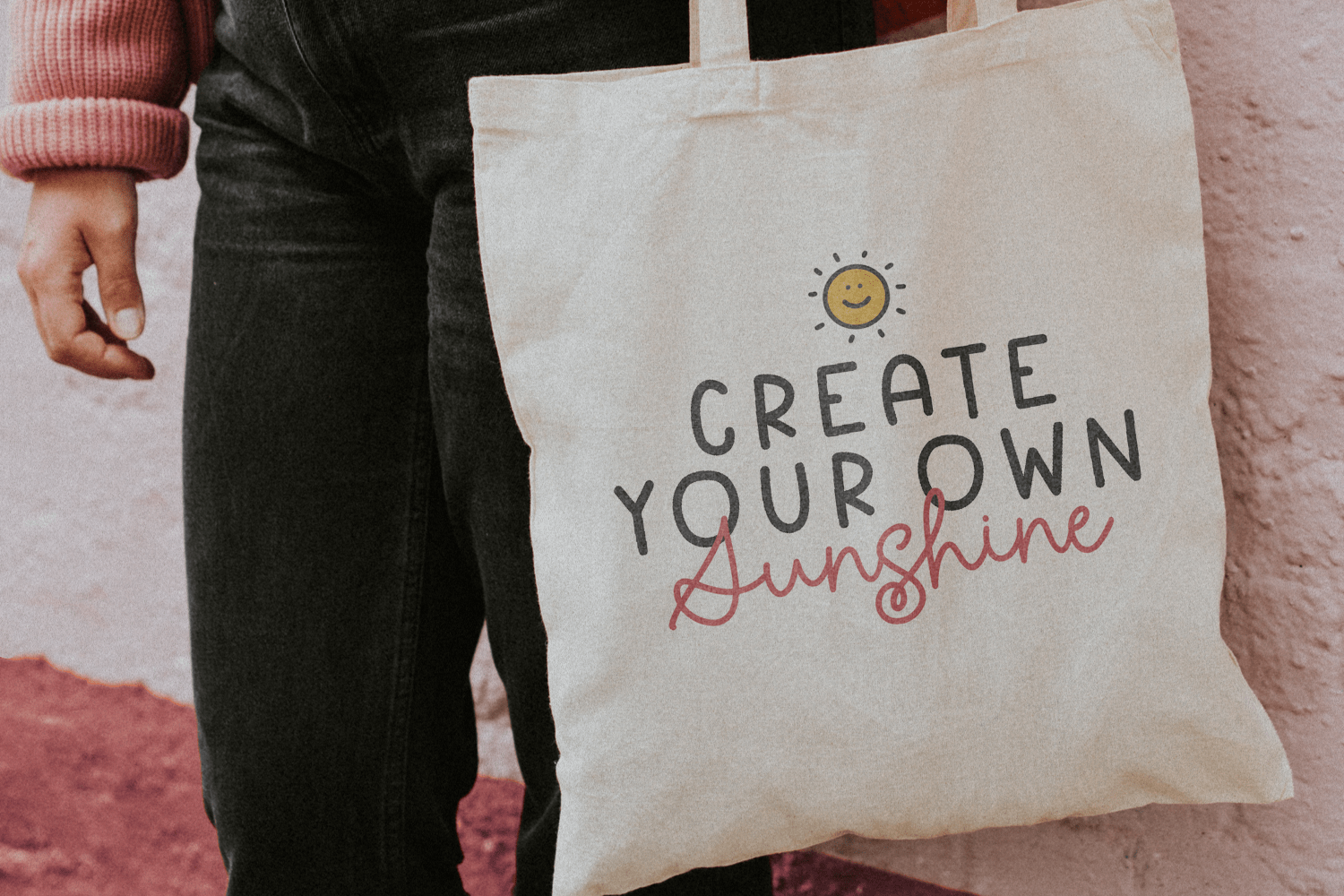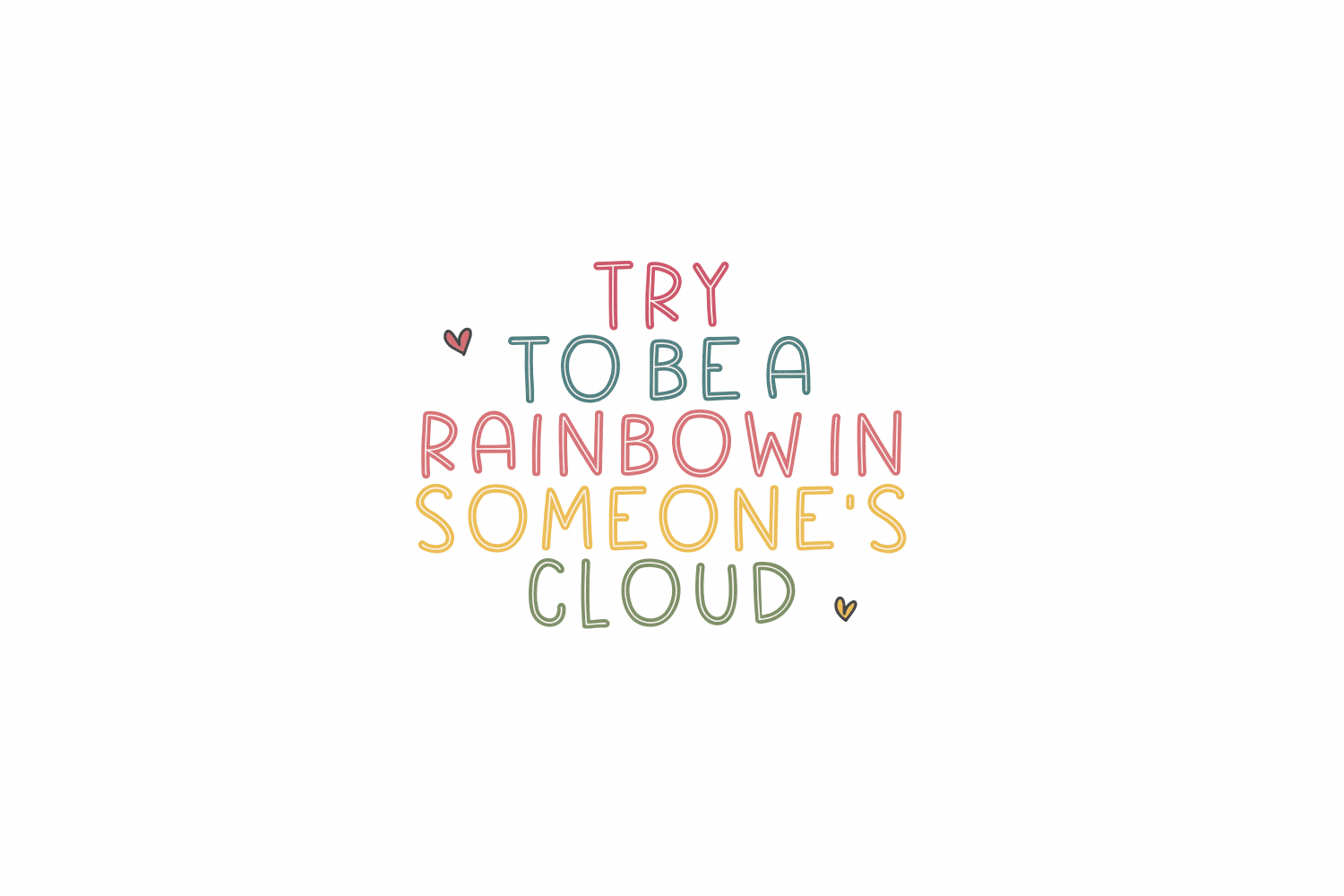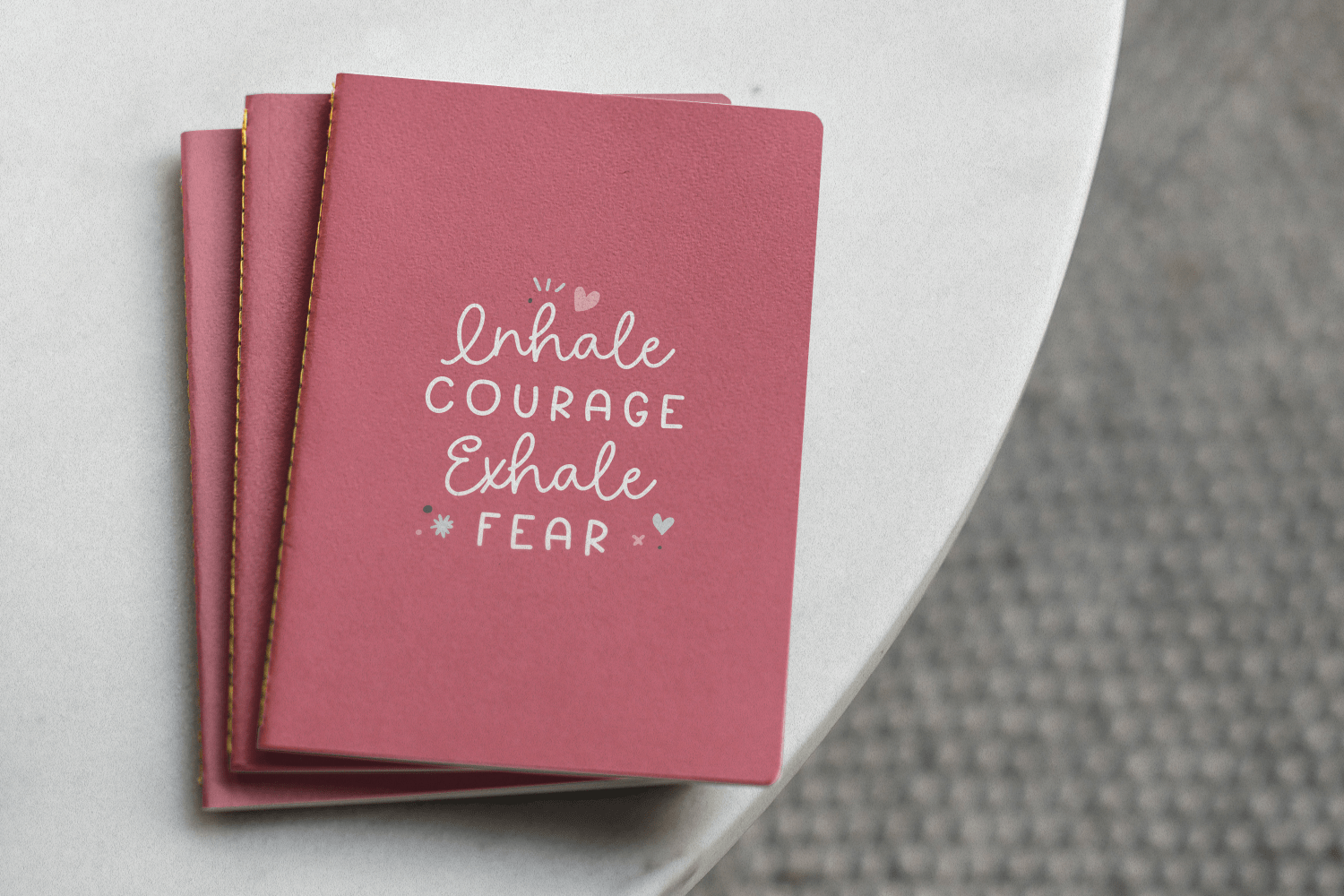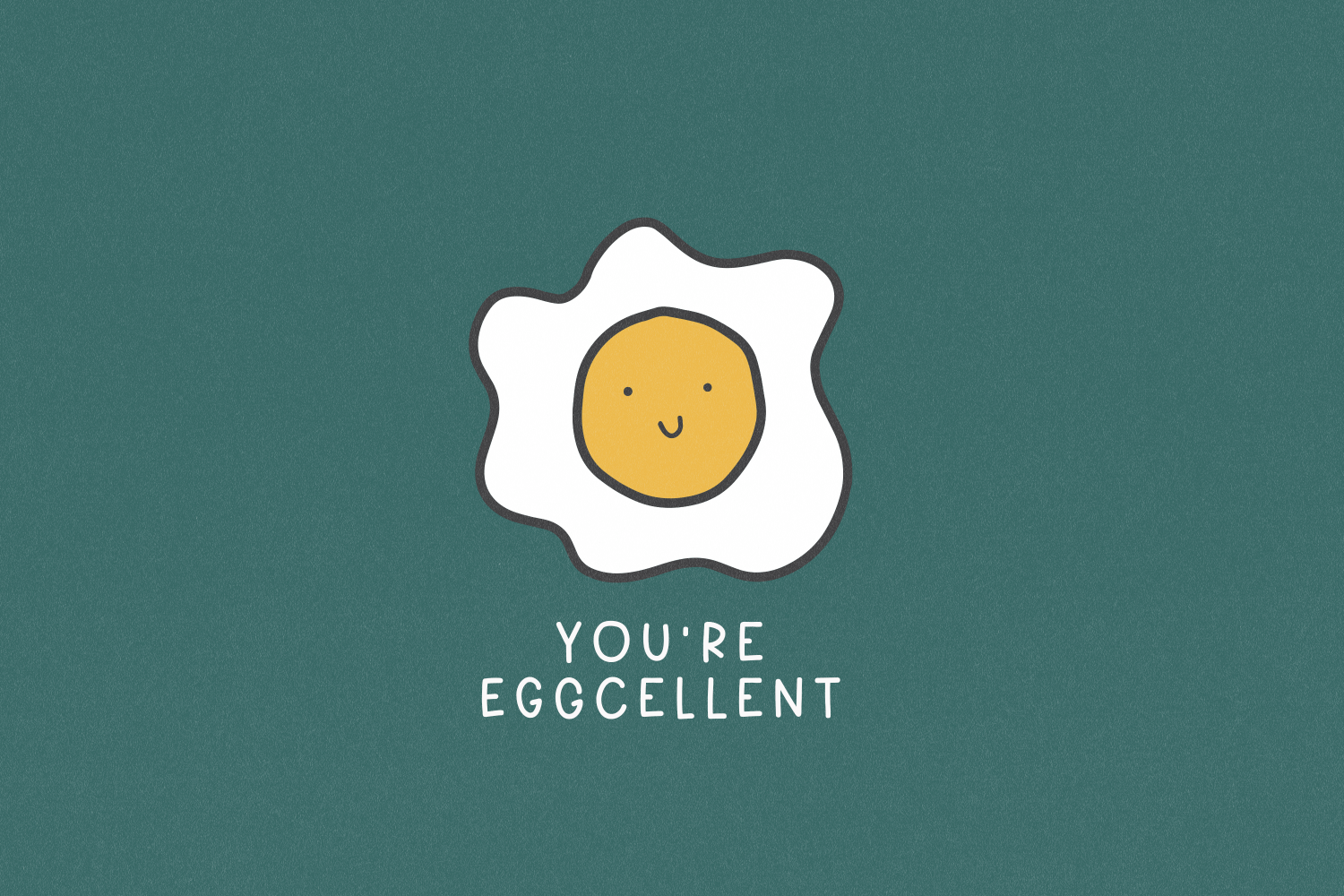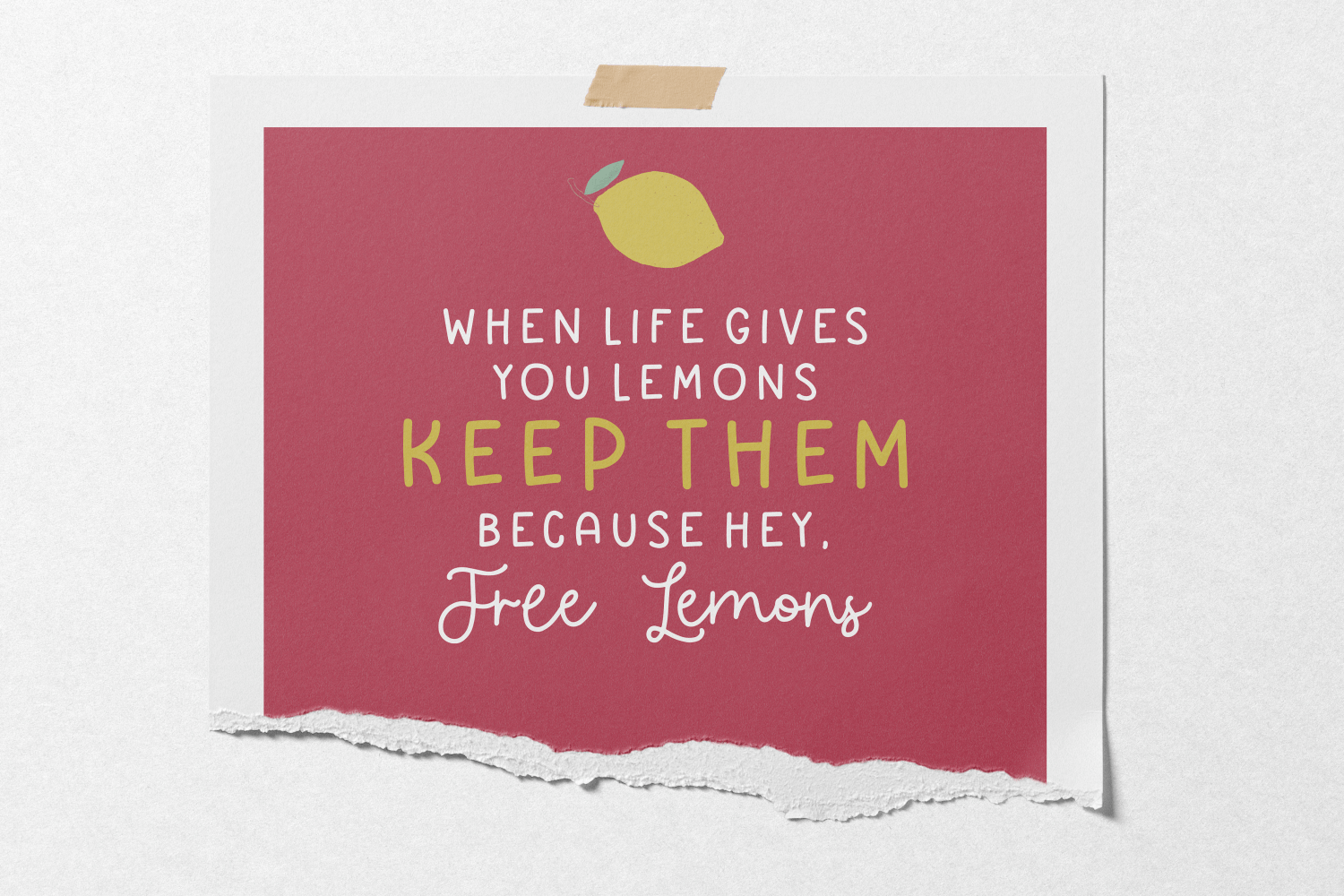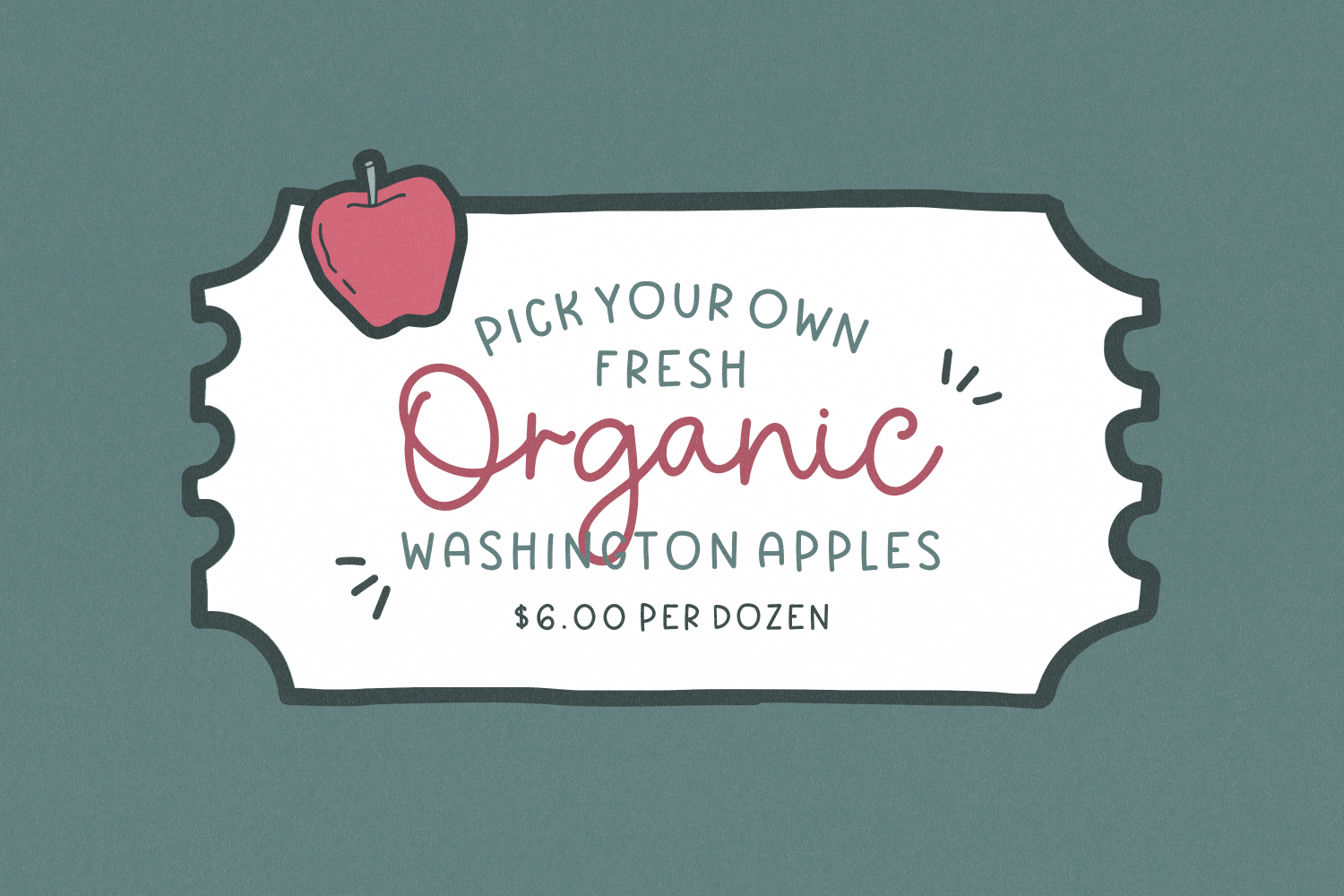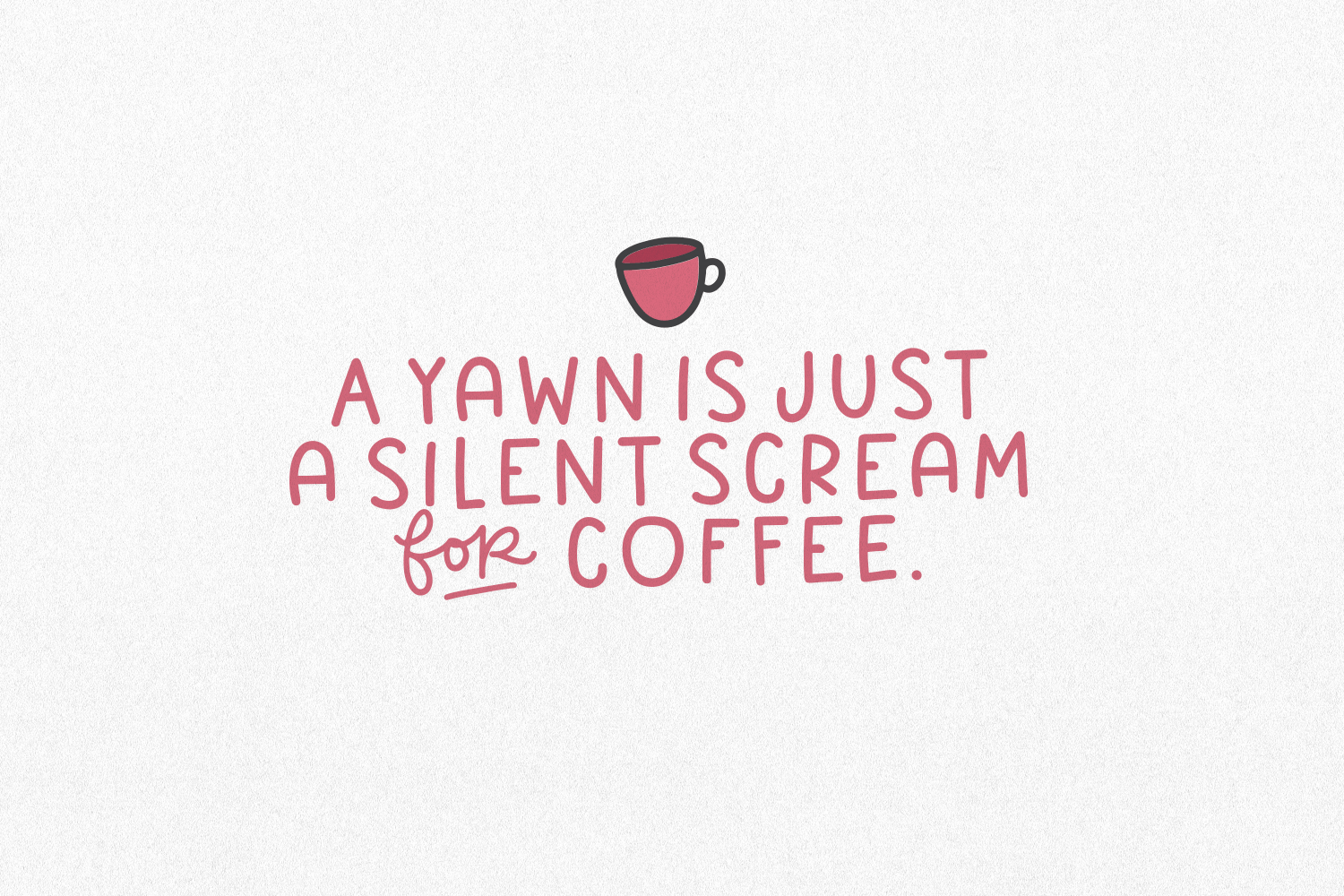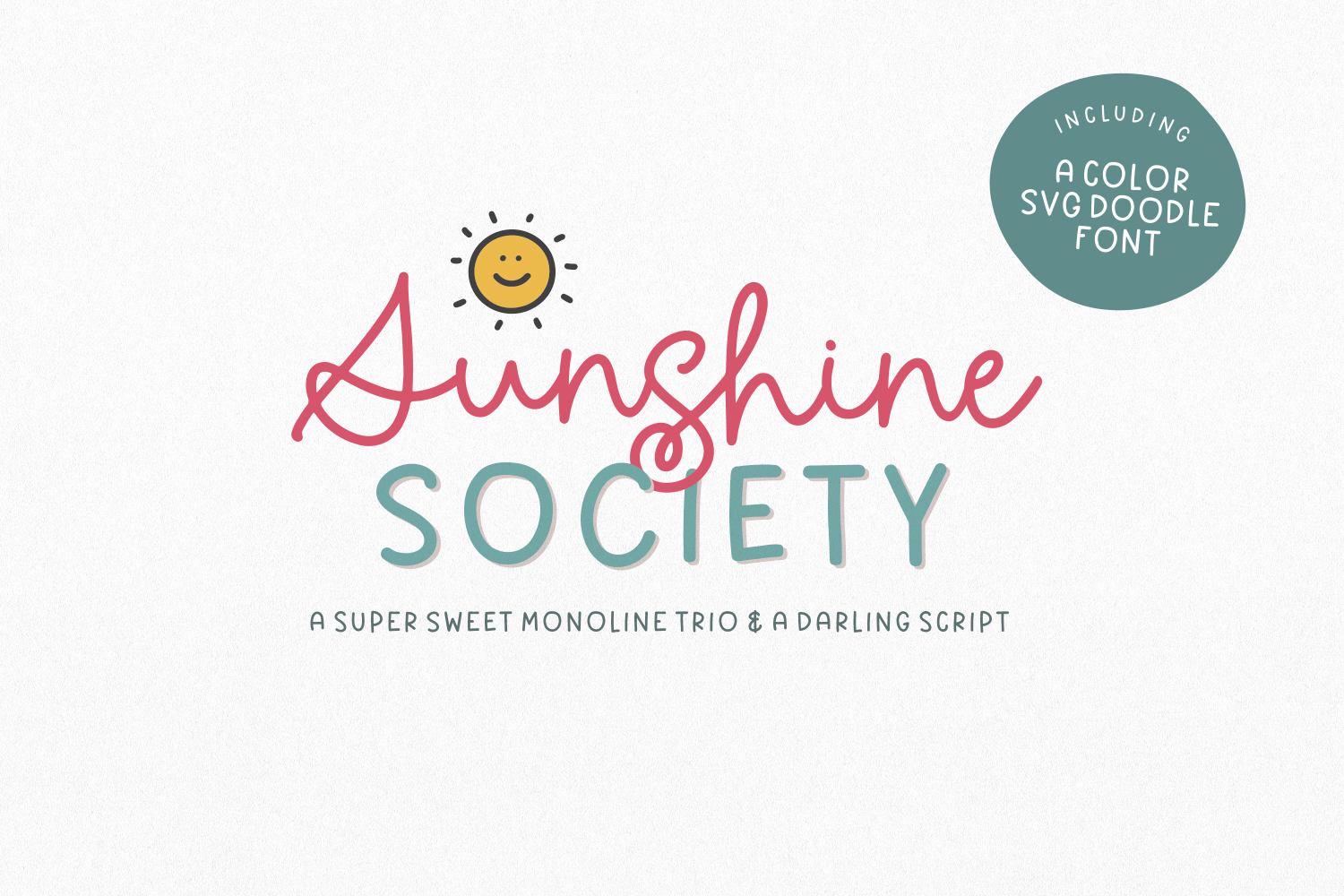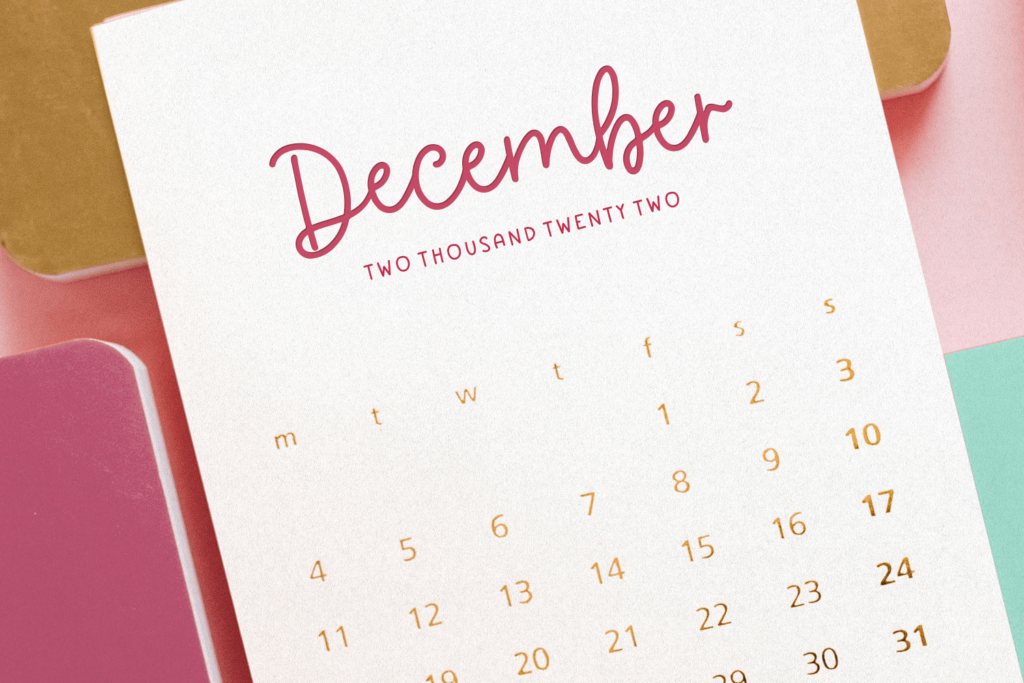
Sunshine Society
About Sunshine Society
Looking for a little bit of sunshine lately? ?? Well, I\’ve got ya covered! Introducing, Sunshine Society, a super sweet monoline font trio with a darling script and a handy color SVG font. Sunshine Society was designed for simple quotes, logos, stationary…